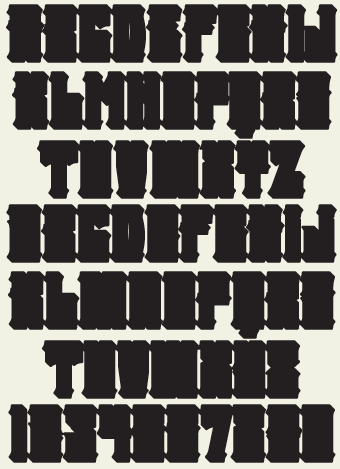
A commanding font with sharp, sloping serifs, you'll find many uses for LHF Ransom. Set includes 4 fonts: Regular, Drop Shadow, Block Shadow and Convex. You may also like Shogun.